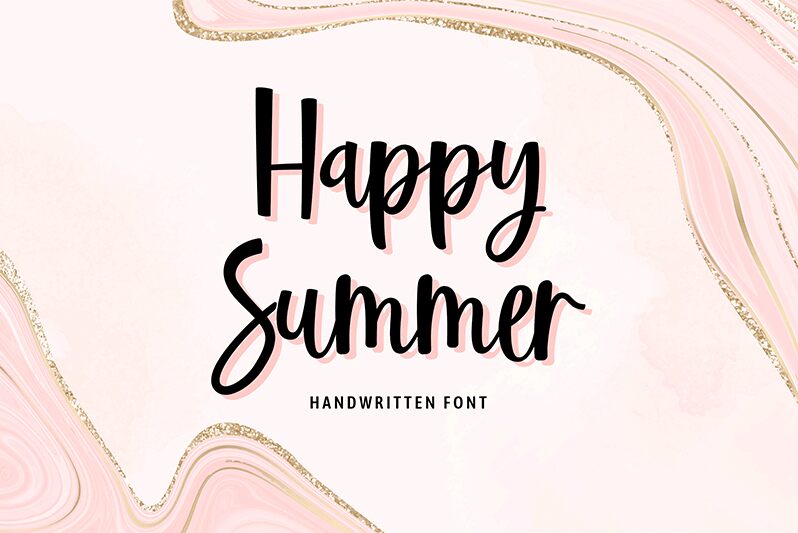
HappySummer
\nHappySummer font is a handwritten font created by UI Creative. It beautifully balances casual lines with an elegant touch, making any text written with it seem approachable and inviting. The modern script characters have a flowing look that can be used for professional design projects where aesthetics and appeal are important.
The free handwritten font would work well in invitations, book covers, and logo designs. Branding projects for small businesses would rely on it more often, but larger companies will have their place using it as well. Posters, social media pages, greeting cards, promotional materials can all benefit from HappySummer too!
HappySummer font is a free handwritten font designed by UI Creative. It features a casual, flowing style that adds an expressive and personal touch to any project. This modern script font is both friendly and warm, making it suitable for a variety of uses in graphic design and digital art.
You can use this spectacular typeface for packaging design, branding projects, product designs, social media posts, desktop wallpapers, UX and UI designs, and mobile apps. It works beautifully for titling your books or magazines with flair or incorporating HappySummer into advertisements or logotypes among many others.